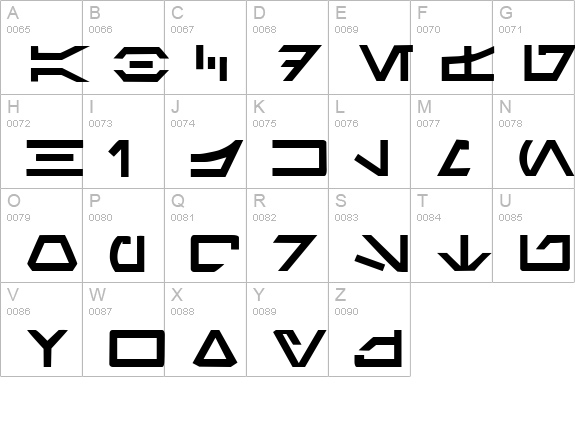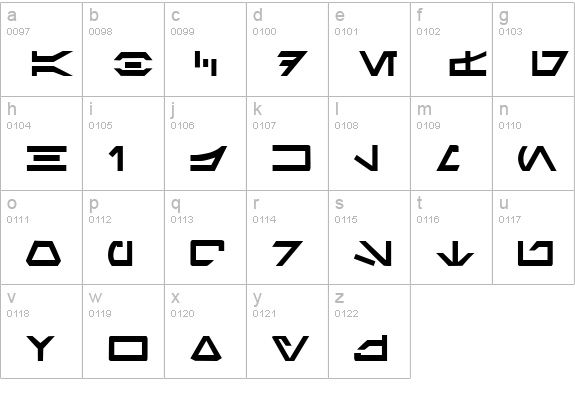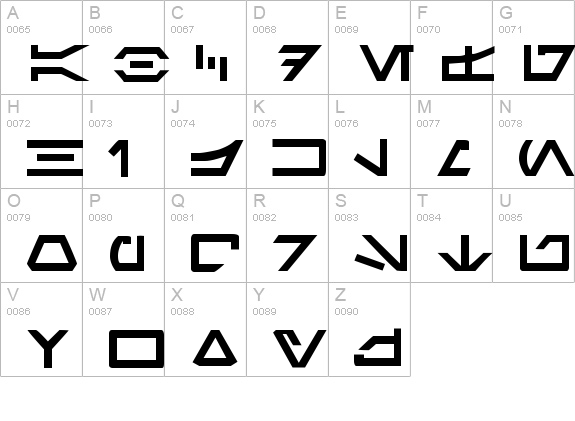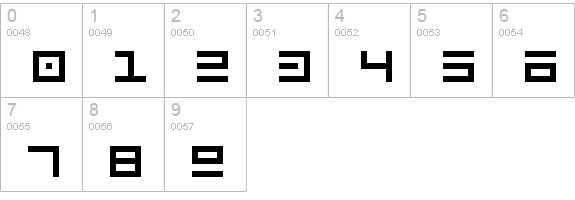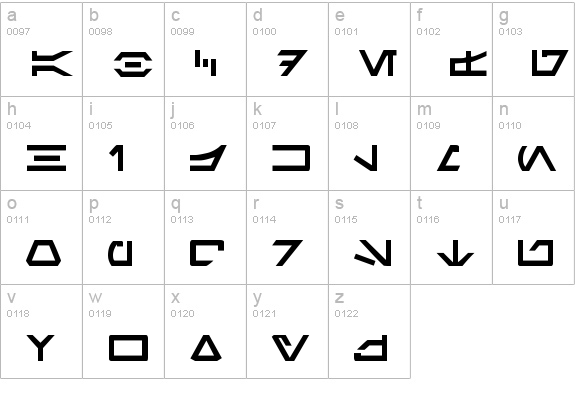
Aurabesh Font Details
The Aurabesh font is a stunning and intricate typeface inspired by the iconic writing system of the Star Wars universe. Its elegant curves and sharp angles capture the essence of a galaxy far, far away, making it a perfect choice for fans of the franchise or anyone looking to add a touch of sci-fi flair to their designs. What's even better is that Aurabesh is available for free download at FontsMarket.com, allowing you to easily incorporate this captivating font into your projects without any cost. Whether you're creating posters, invitations, or digital art, Aurabesh is sure to bring a sense of adventure and excitement to your work. Don't miss out on the opportunity to use this unique and eye-catching font in your designs - download Aurabesh for free today!